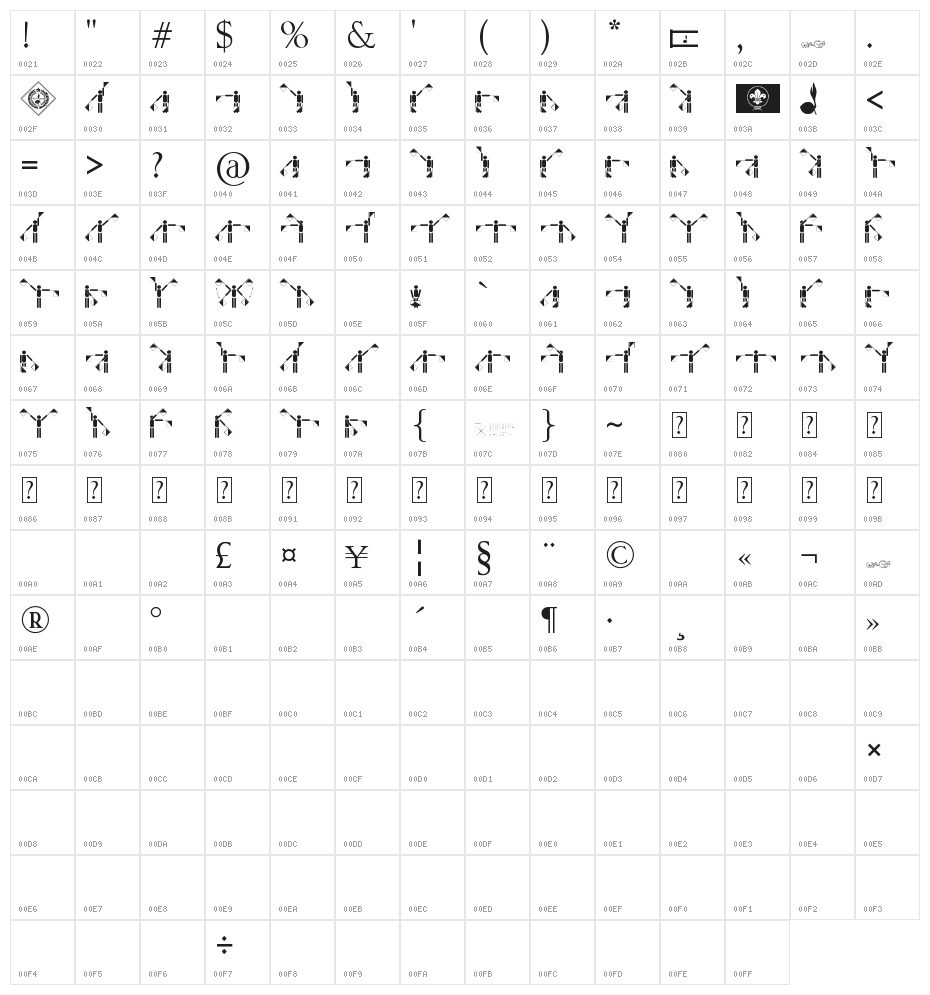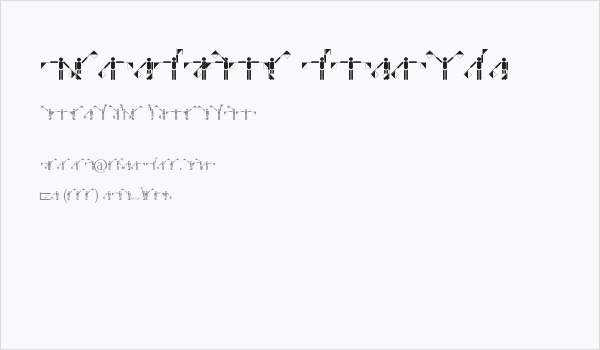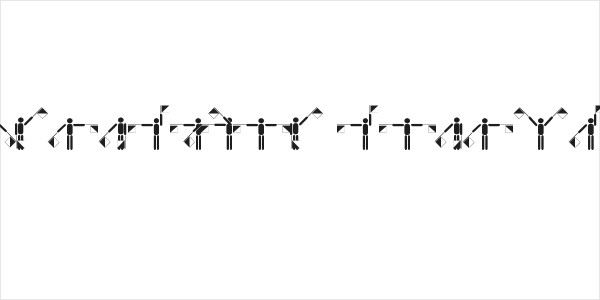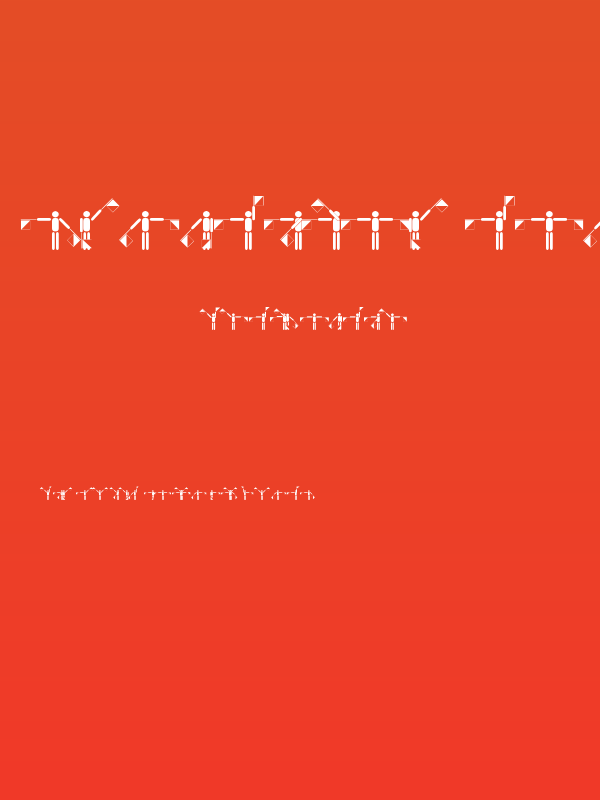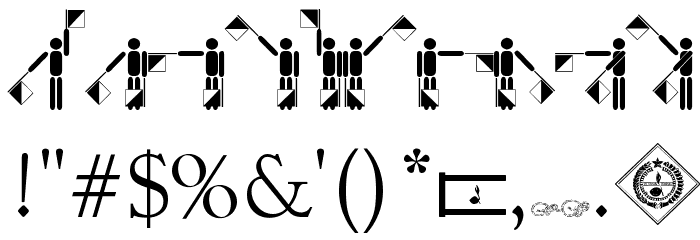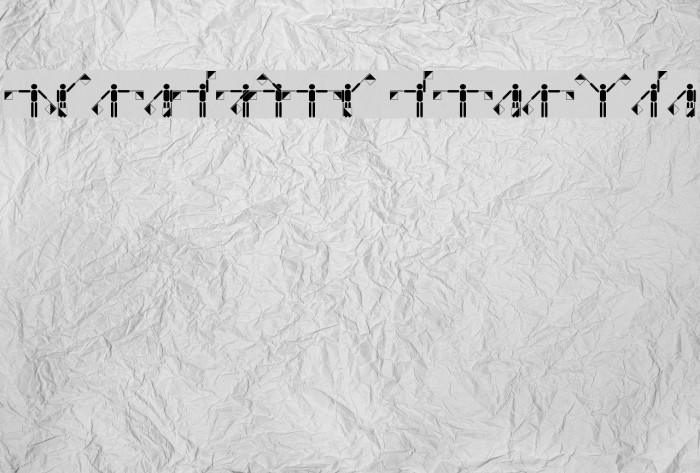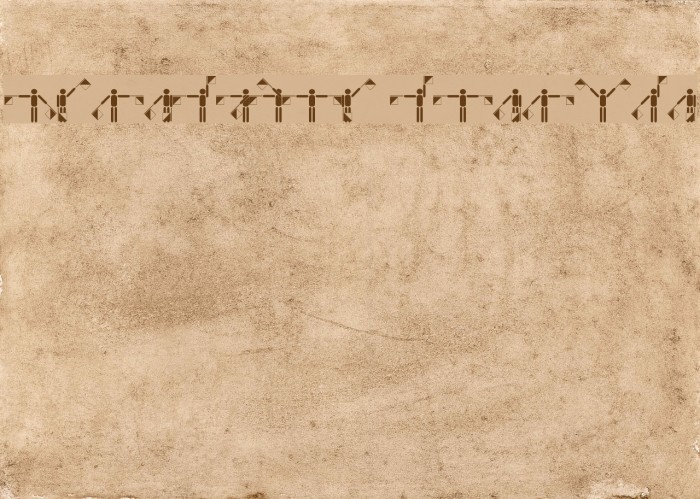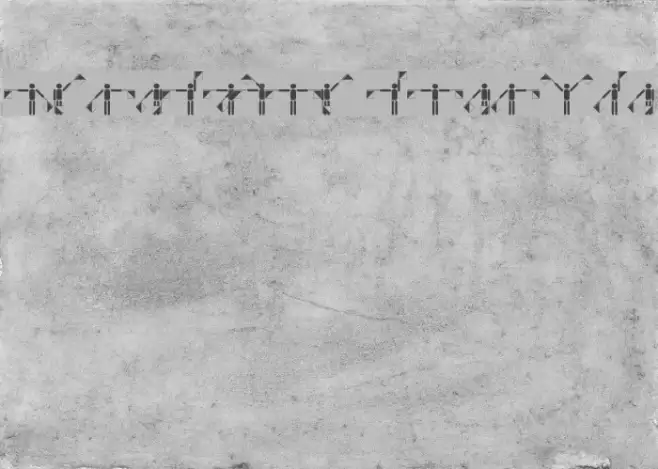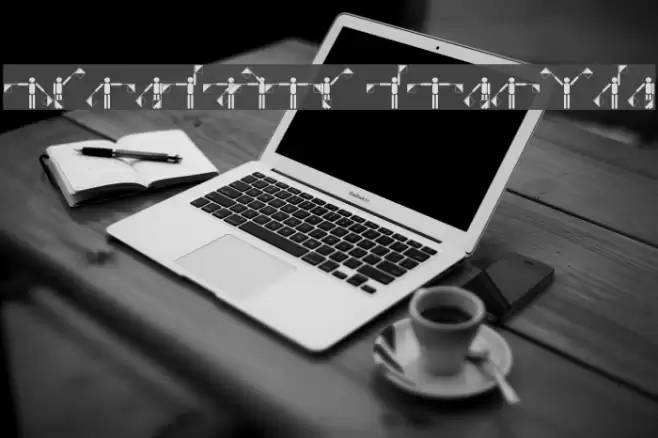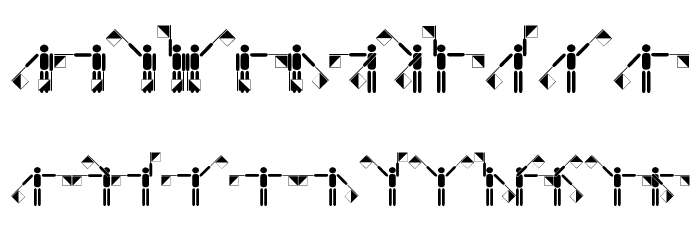
Semaphore Pramuka Font
Semaphore Pramuka Description
This unique font uses semaphore flag positions to represent characters, creating a visually intriguing and symbolic typeface. Each letter and number is depicted through a stylized figure holding flags in various positions, reminiscent of maritime signaling. The design is both playful and educational, offering a creative way to incorporate semaphore communication into text. The characters are evenly spaced, ensuring readability while maintaining the distinct semaphore style. This font is ideal for themed projects or educational materials related to communication, navigation, or maritime history.
| Use Case | Logos, Educational materials, Themed designs |
| Proposed Projects | Ideal for educational materials, maritime-themed designs, or creative projects that incorporate signaling and communication. |